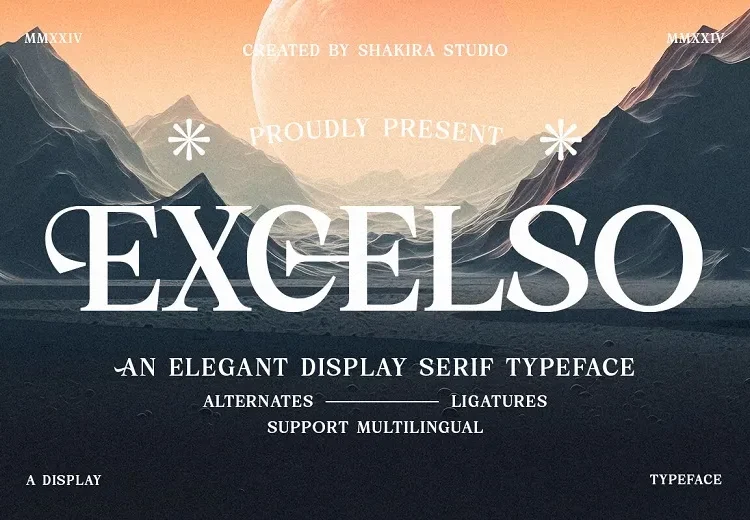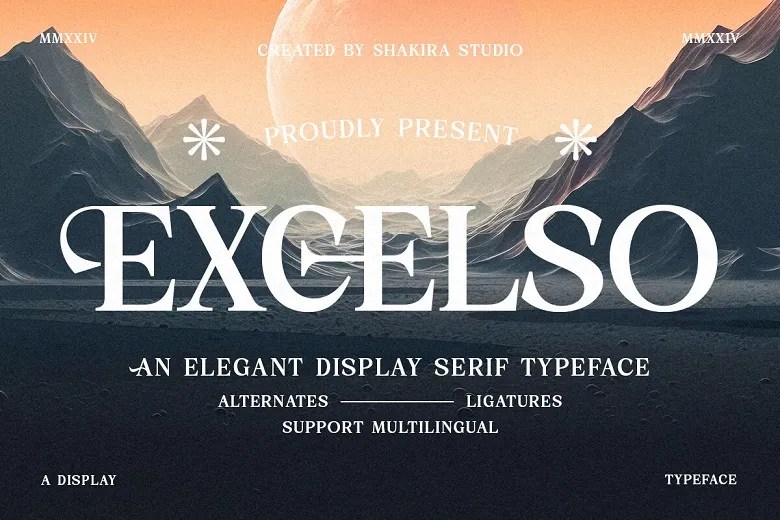
Excelso Font
Excelso is a sophisticated and elegant display serif font that brings a touch of refinement to any design. Designed with meticulous attention to detail, Excelso is available in both regular and italic styles, making it versatile for a variety of applications, from editorial layouts to branding projects.
Key Features:
• Elegant Design: Excelso’s clean lines and modern serifs provide a perfect balance of sophistication and subtlety, ensuring that your designs exude elegance without being overly bold.
• Versatile Usage: Ideal for editorial work, branding, and any project that demands a classy and polished look.
• Multiple Styles: Comes in both regular and italic variations, allowing you to choose the style that best complements your design needs.